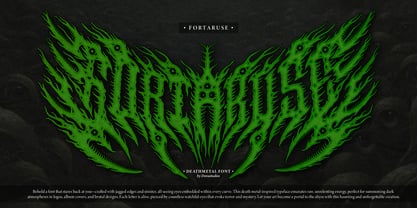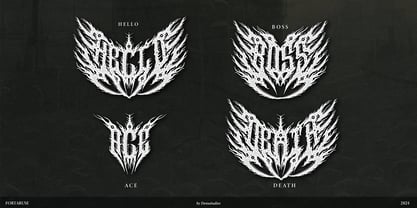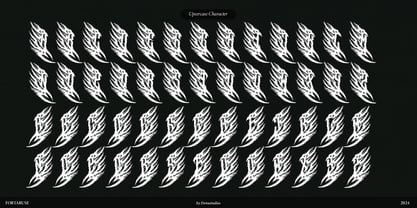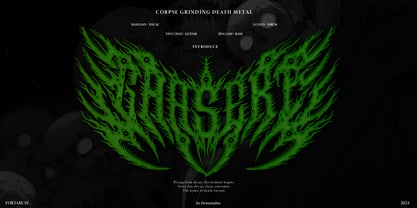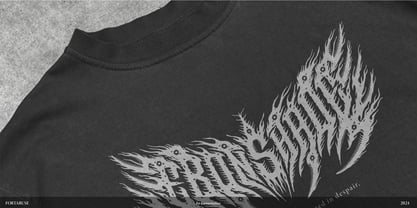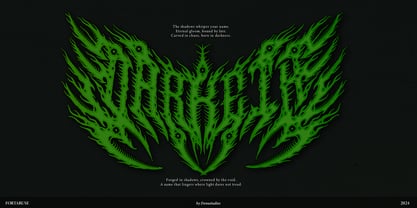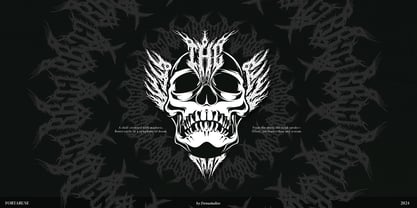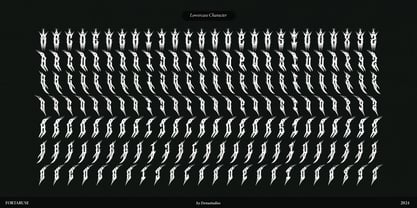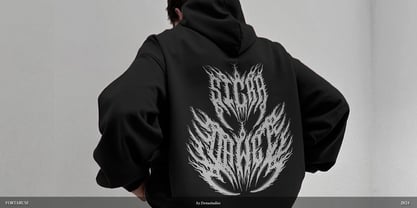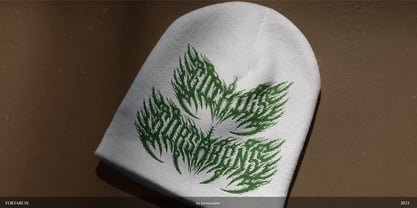
Fortaruse
The Fortaruse Font Family was designed by Dede Nugraha and published by Denustudio. Fortaruse contains 1 styles. More about this family
Fortaruse | Death Metal Font, from Denustudios, suitable for any projects such as: logos, branding projects, homeware designs, product packaging, mugs, quotes, posters, shopping bags, t-shirts, book covers, name card, invitation cards, greeting cards, label, photography, watermark, special events, and all your other lovely projects that need a Death Metal Font taste.